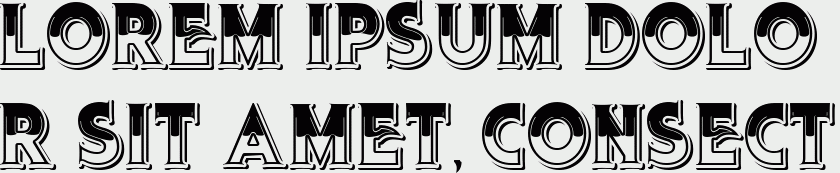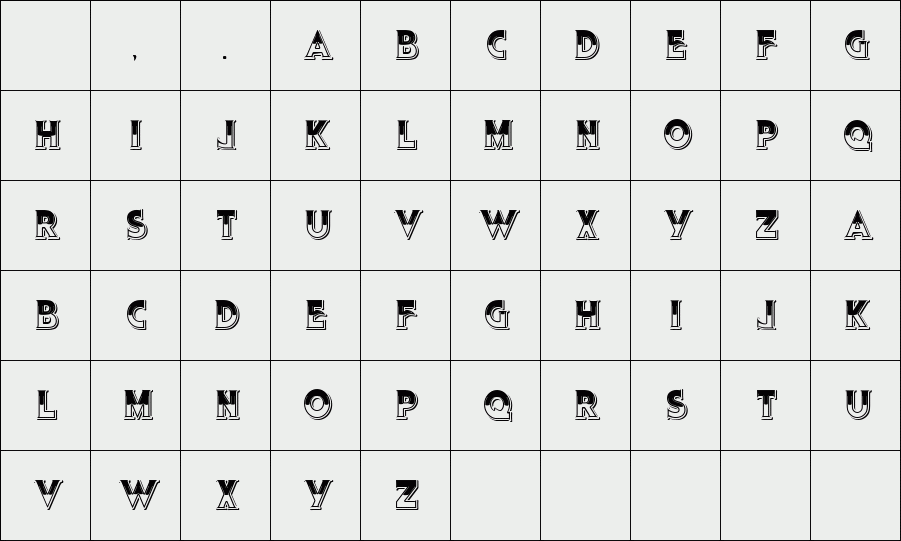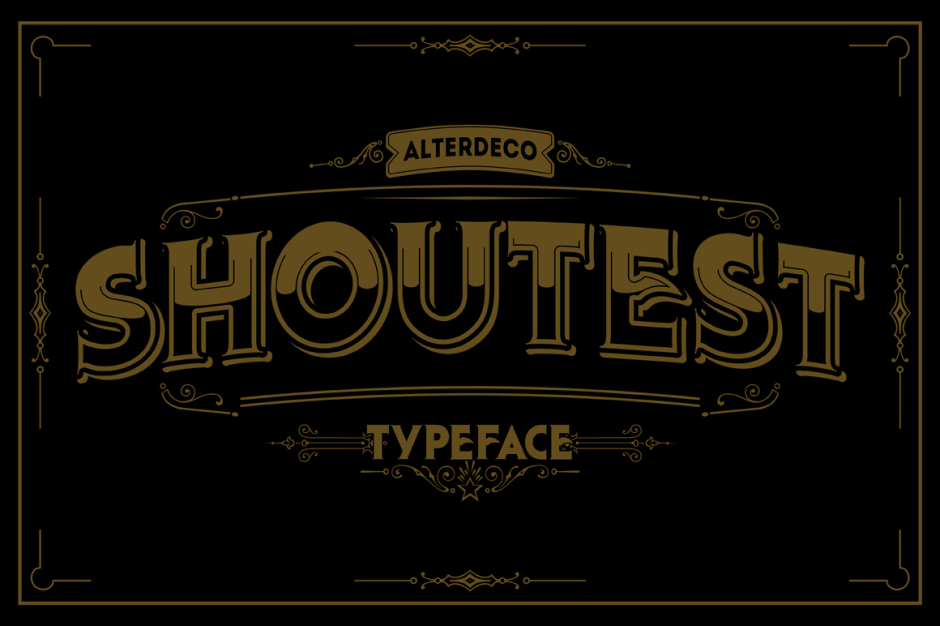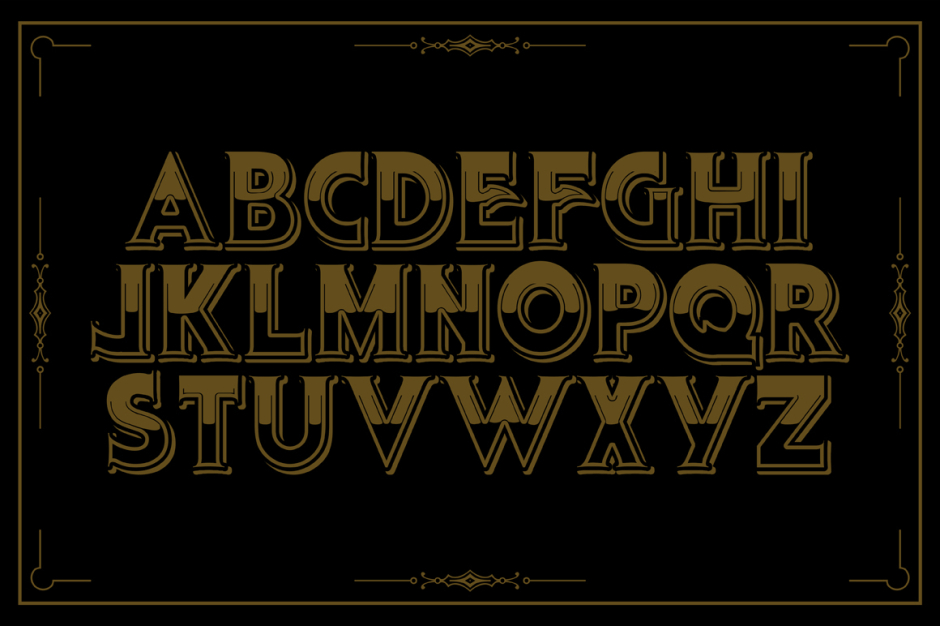
Shoutest typeface
/ Shoutest shadowed
Shoutest typeface is an all caps modern retro style typeface. its perfect to fit a logotype and apparel brand design.